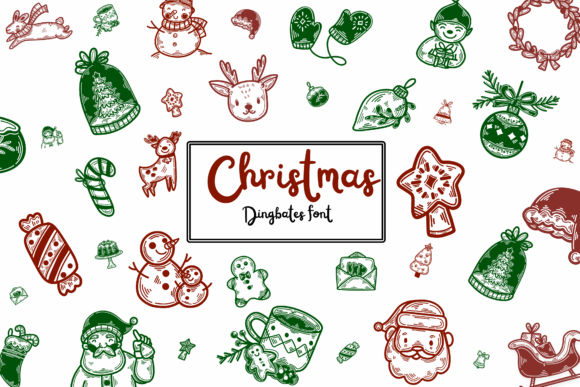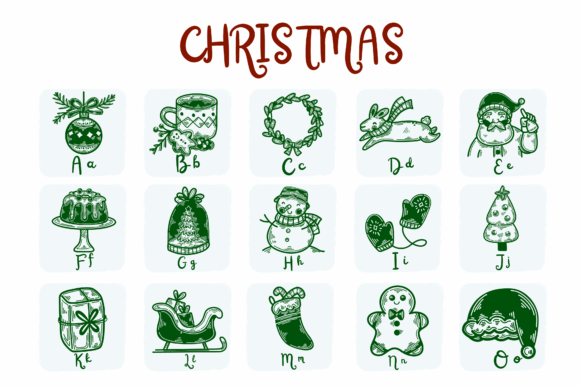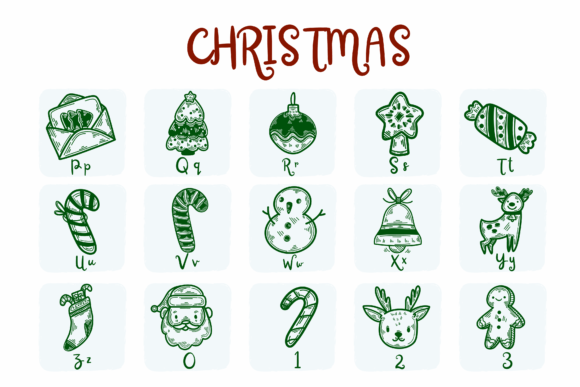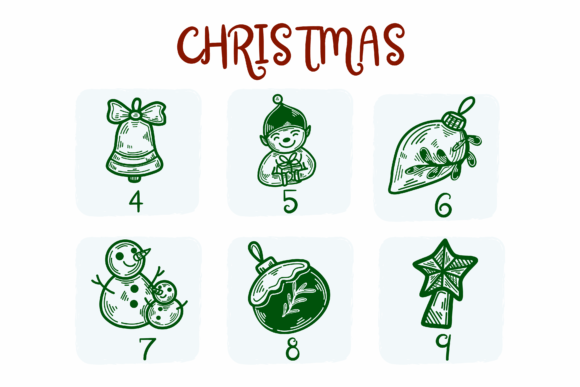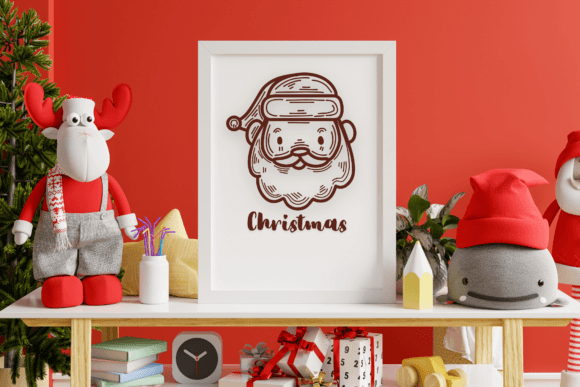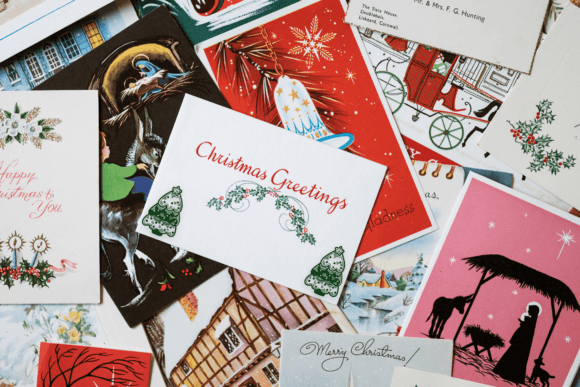
Deck the Halls with Holiday Cheer
It’s that time of the year when creativity knows no bounds, and the festive spirit takes over our designs and messages. We’ve all been there – staring at a blank page or screen, trying to come up with the perfect idea to spread holiday cheer. And then, it hits us – a spark of inspiration that sets our imagination ablaze. For many designers, it’s the perfect excuse to break out the festive fonts and add a dash of magic to their creations.
Enter the Christmas Font, a special alphabet that replaces each letter with a fun Christmas symbol, from Santa hats to snowmen, and decorations galore. It’s a playful way to add holiday cheer to your designs or messages, and a valuable tool for designers looking to create unique and festive content. Whether you’re a graphic designer, social media manager, or simply a lover of all things festive, the Christmas Font is sure to bring a smile to your face and a touch of holiday magic to your creations.
Christmas Font Key Features
- Font Family: A collection of Christmas-themed fonts, including bold, italic, and regular styles.
- Unique Characteristics: Features festive and holiday-inspired designs, including holly leaves, snowflakes, and Christmas trees, adding a touch of holiday cheer to any design project.
Review of “Christmas Font”
Overall, I was excited to dive into the “Christmas Font” and see what it had to offer. The design is cheerful and festive, perfect for the holiday season. ✨ The font is bold and playful, making it ideal for creating eye-catching headings and titles.
One of the standout features of this font is its versatility. It can be used for a wide range of applications, from posters and flyers to social media graphics and website headers. ✨ The font is also highly customizable, allowing users to adjust the size, color, and spacing to fit their specific needs.
While the “Christmas Font” has a lot to offer, there are a few limitations that are worth noting. ⚠️ For one, the font can feel a bit overused and clichéd, especially in large quantities. Additionally, the font’s bold and playful design can make it difficult to read in smaller sizes or in complex layouts.
- May not be suitable for use in formal or professional contexts
- Can be difficult to read in certain layouts or sizes
Overall, the “Christmas Font” is a fun and festive addition to any design project. While it may have some limitations, its versatility and customizability make it a great choice for designers looking to add a bit of holiday cheer to their work. With a bit of creativity and caution, the “Christmas Font” can be a valuable tool in any designer’s arsenal.
Getting the Most Out of Christmas Font
To get the most out of the Christmas Font, use it in conjunction with festive graphics and colors to create a cohesive holiday design.
Experiment with different font sizes and styles to create visual interest and emphasis.
Use the Christmas Font to add a touch of holiday cheer to your designs, from invitations and cards to social media graphics and advertisements.
The Christmas Font is ideal for:
Creating holiday invitations and cards